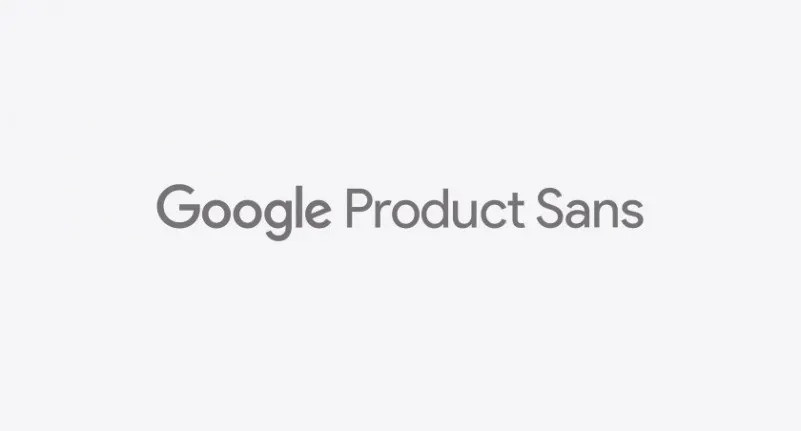
Product Sans Font Family
Product Sans Font is a geometric sans-serif typeface created by Google for branding purposes. It replaced the old Google logo on September 1, 2015. As Google’s branding was becoming more apparent on a multitude of devices, Google sought to adapt its design so that its logo could be portrayed in constrained spaces and remain consistent for its users across platforms, Simple, humble, and approachable.
Product Sans was created from scratch to pair seamlessly with our logo in a variety of contexts and product lockups without overshadowing it. Additionally, it complements the new identity by introducing a primary branding typeface that is different in style and character from other interface text elements used in Material Design. With its careful weaving of form and function, it is an appropriate and essential component to the Google brand system.